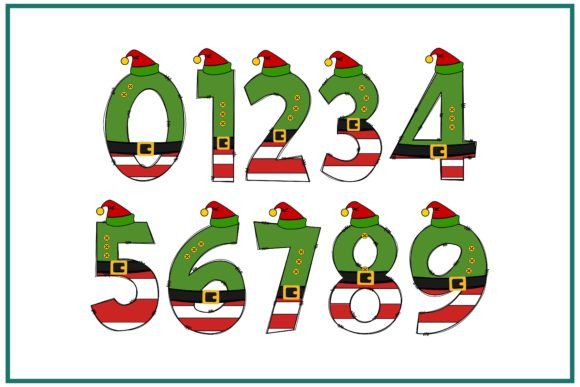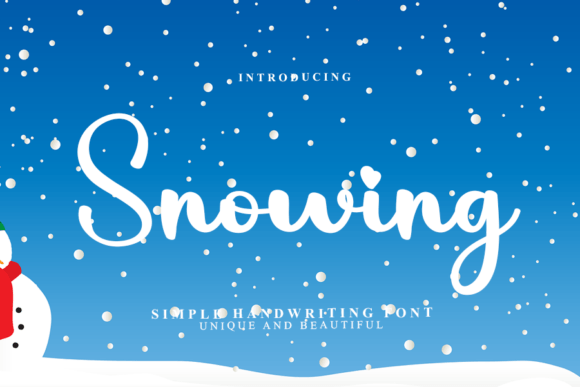
About X-mas Elf Font
Elf is a delightful and unique color font that strikes the perfect balance between being a little bit naughty and a little bit nice. With its uppercase letters adorned with cute elf hats, it is the perfect choice for all your Christmas projects.
This font brings a touch of whimsy and charm to any design. Whether you’re creating festive invitations for holiday parties, designing greeting cards, or sprucing up your website with a Christmassy theme, Elf is sure to add a dose of holiday cheer.
Imagine the joy and excitement it will bring to your recipients when they see the playful elf hats adorning the letters of your text. It’s a fun and creative way to embrace the Christmas spirit and make your designs stand out.
Whether you’re working on personal projects or professional designs, Elf will bring a touch of whimsy and playfulness to your Christmas-themed materials. Let your imagination run wild, and have fun exploring the possibilities of this unique font.
Add some holiday cheer and a touch of naughtiness to your designs with Elf. It’s the perfect font to infuse your Christmas projects with a sense of fun and excitement.